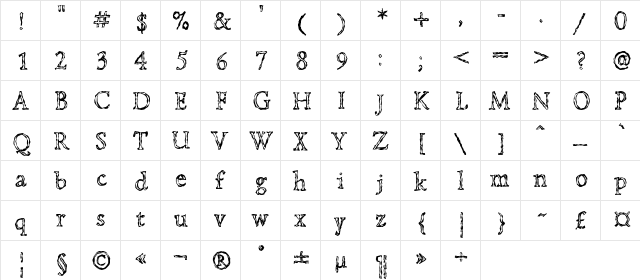
LazurskiEngravedC Medium Font Preview
LazurskiEngravedC Medium
LazurskiEngravedC Medium Font Details
| Foundry | Dmitry Tarbeev, Alexander Tarbeev Published by ParaType |
Design Context for LazurskiEngravedC Typeface
LazurskiEngravedC is built around its visual character rather than neutral utility — its distinctive forms are designed to make an impression at display sizes.
Font Pairing: Pair with a clean neutral sans-serif for body copy to let LazurskiEngravedC's character lead without overwhelming the composition.
Pro Tip: Treat LazurskiEngravedC as the centrepiece of your typographic hierarchy. One strong heading set in a decorative face can carry an entire layout.